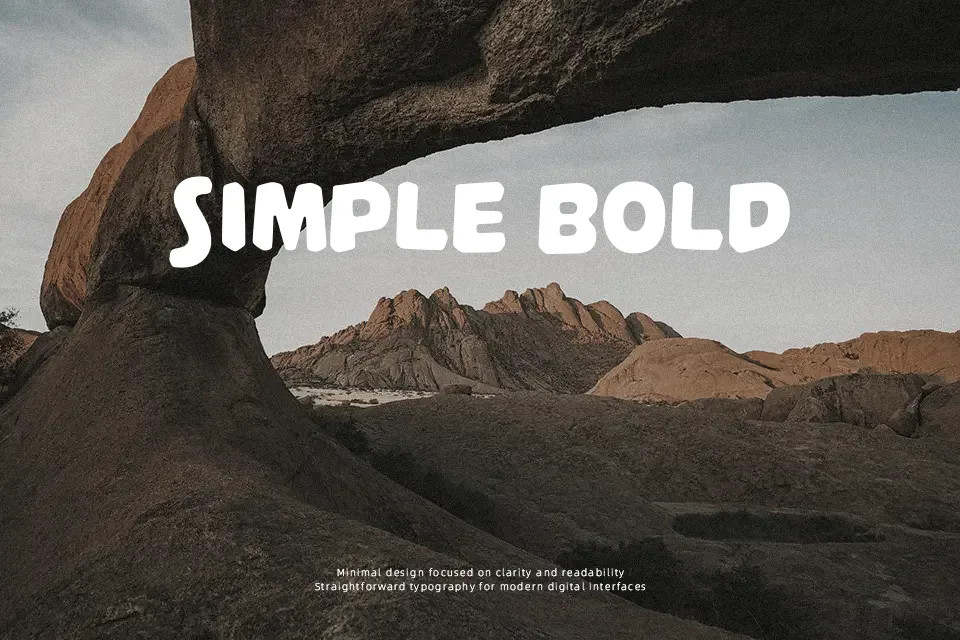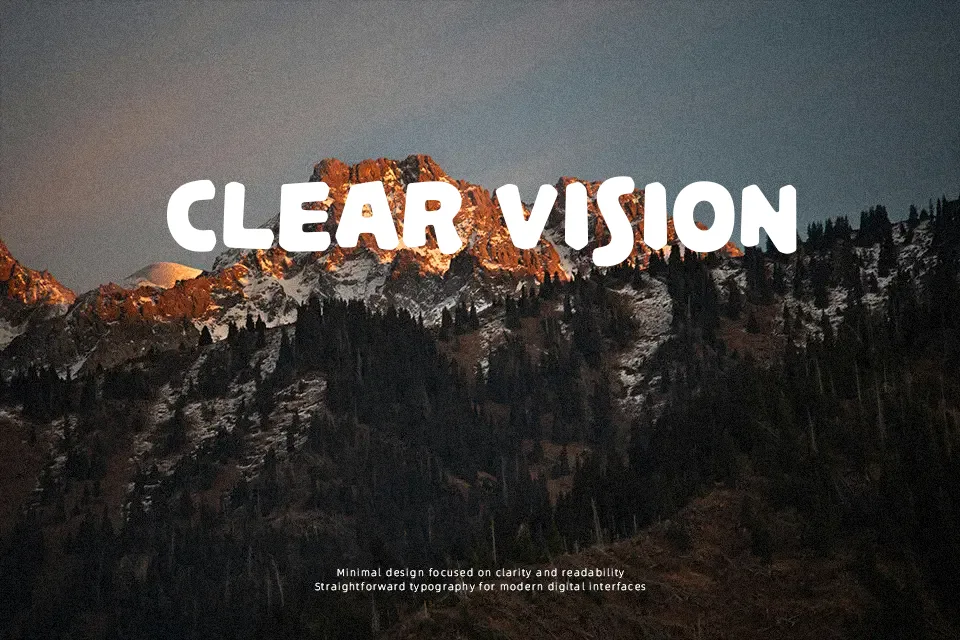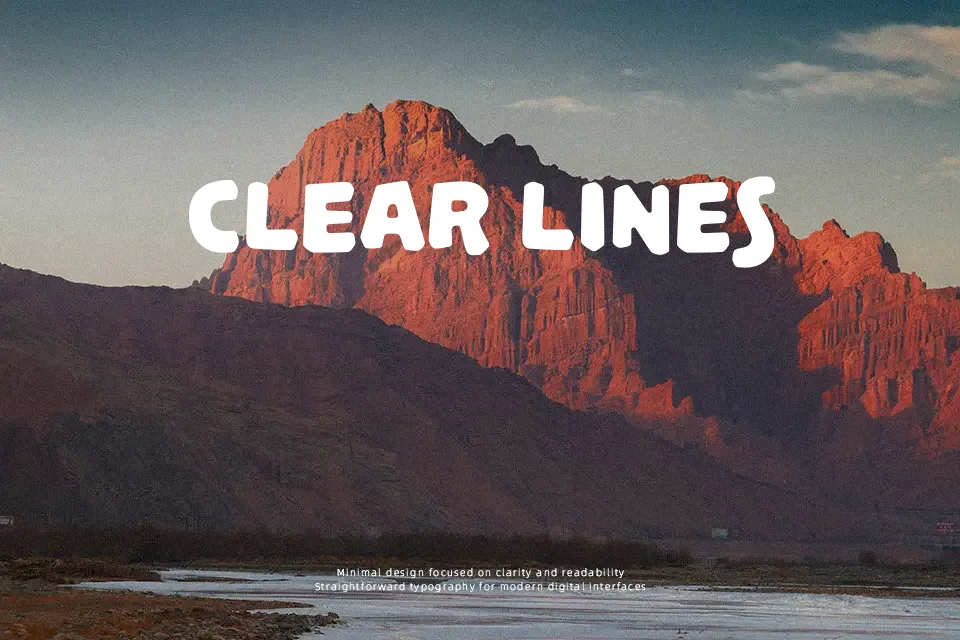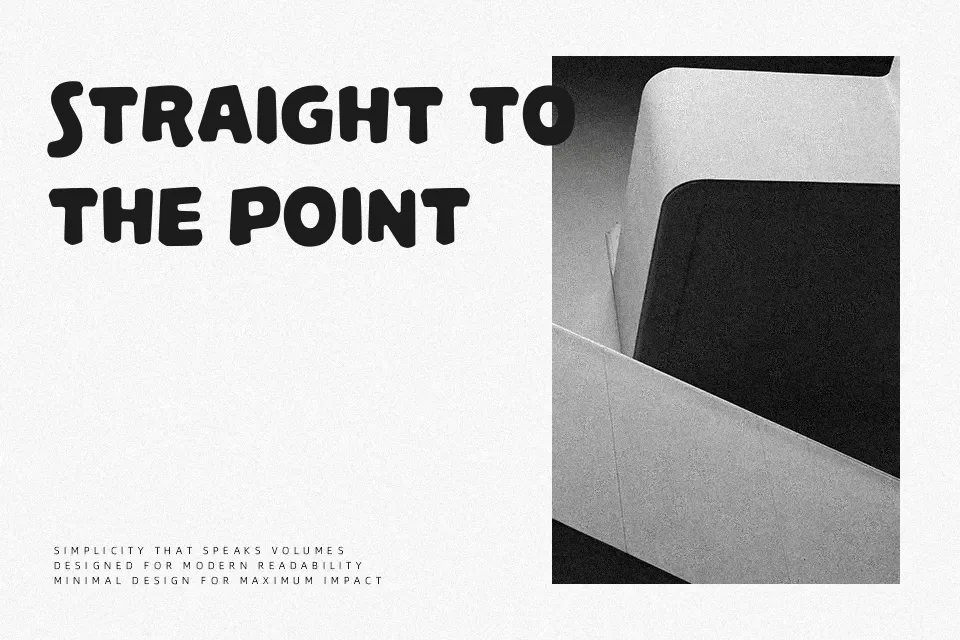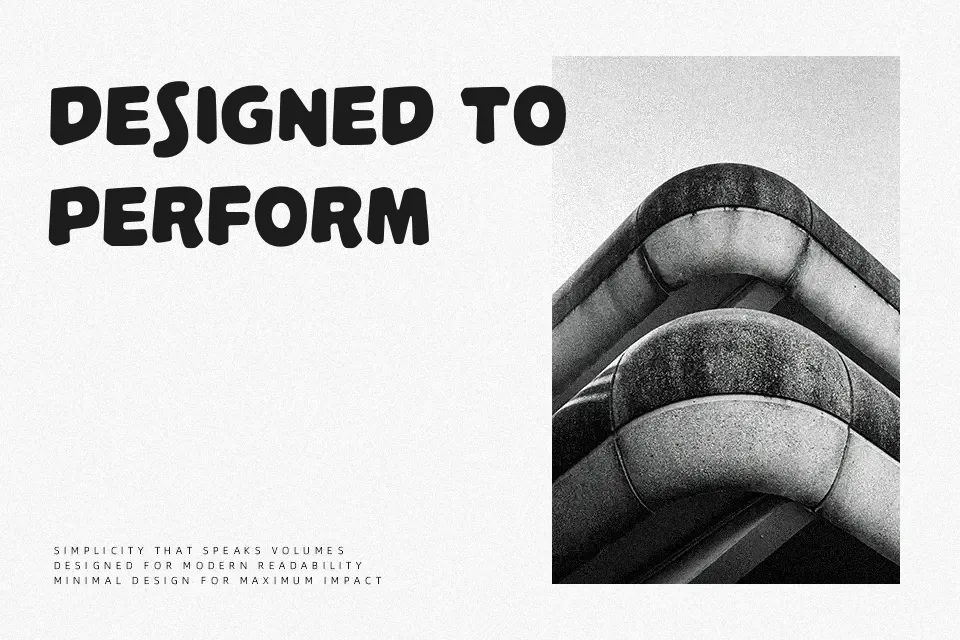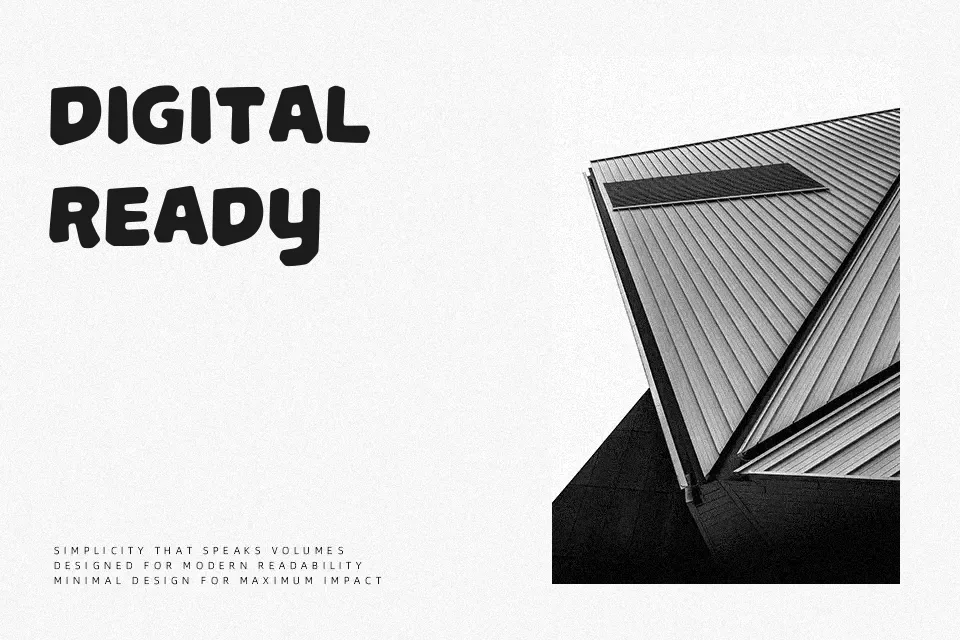
Palamecia Titling Font
Designed by Typodermic Fonts
Palamecia Titling uses thick, rounded strokes and slightly uneven contours to create a compact display texture. The letterforms are wide enough to feel stable while retaining a hand-cut, comic-like edge, and the spacing keeps short words visually connected. Capitals, numerals, and basic punctuation follow the same heavy construction, making titles easy to spot at larger sizes. It works well for short headlines that need a friendly, sturdy presence rather than a neutral tone. The dense weight supports strong poster text, but small captions and long paragraphs can become tiring because the forms occupy so much visual space.
Best For: kids event posters,game title screens,product packaging headlines,apparel graphics
Perfect for gaming, headline, and kids, with a bold and comic style.